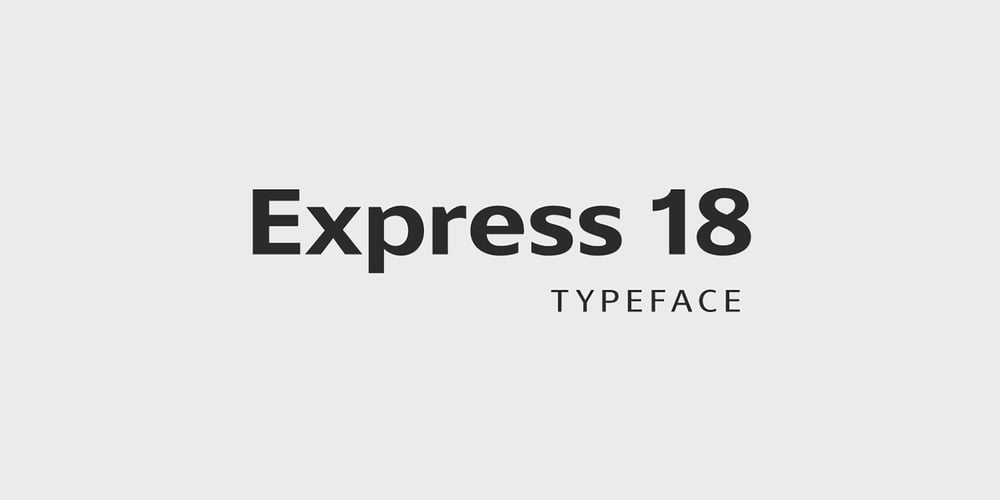
Express 18
Express 18 font
Express 18 Font Family was designed by Igor Kosinsky and published by Kosinsky. Express 18 contains 7 styles and family package options. Express 18 is a sans-serif with open forms and optically balanced noticeable contrast. typeface is designed for universal use. supports extended latin and open type function.